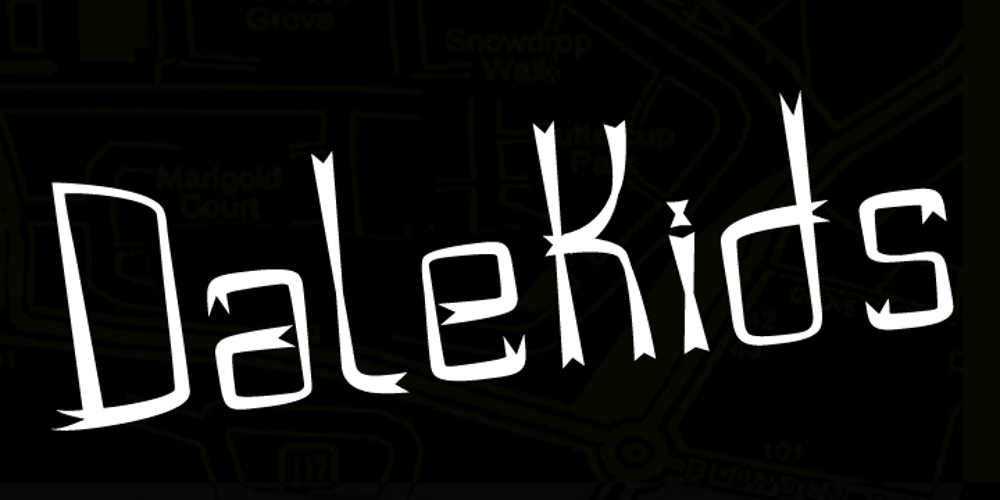
Dale Kids Font Family was designed by published by AdultHumanMale. Dale Kids contains 2 styles and family package options. DaleKids is a fun kiddie style font, a little bit picture book and a little bit comic book too. The font is available in two styles regular and italic. Designed to be playful it looks great on birthday cards and long tome like monologues of cute speak.